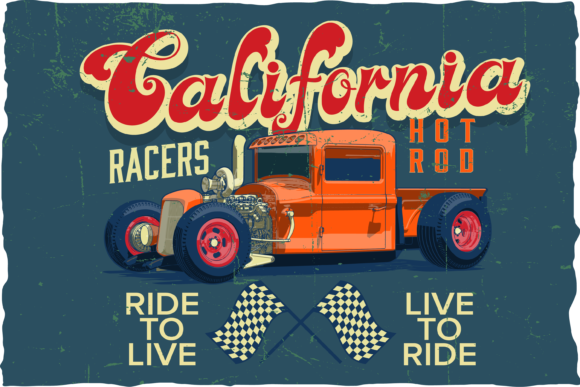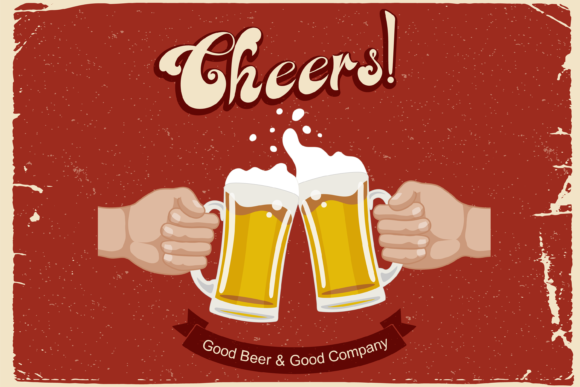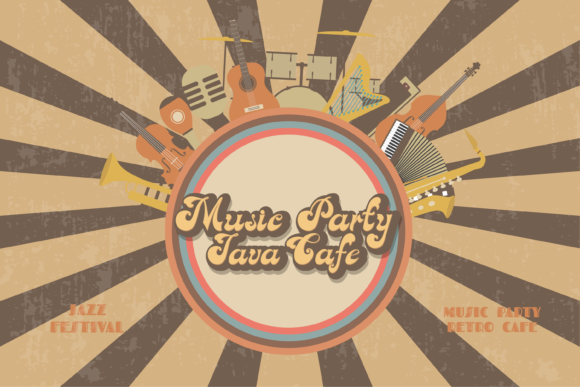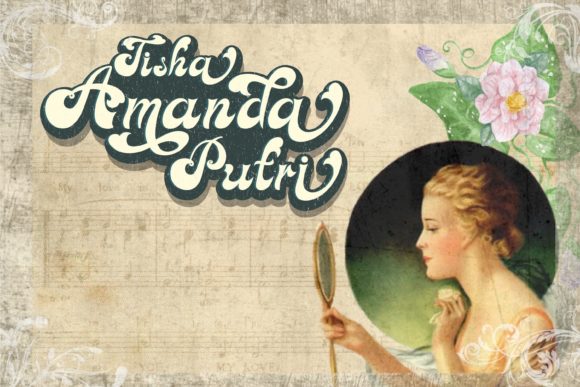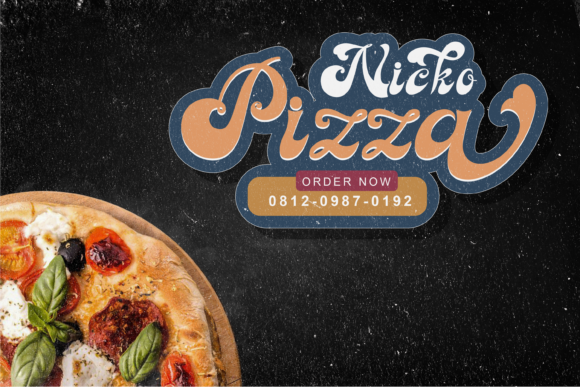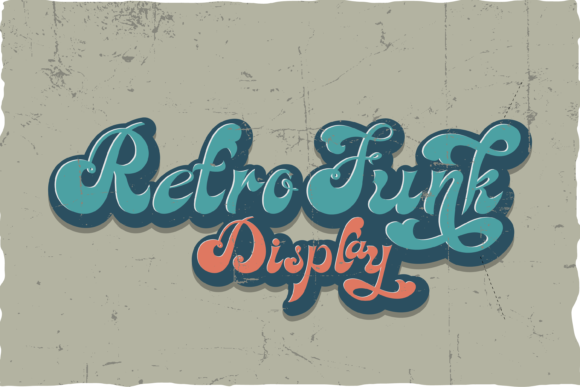
Achandria Font: Elevate Your Designs with a Retro Flair
In the realm of typography, fonts play a pivotal role in conveying the tone and aesthetic of a design. For those seeking to infuse their projects with a touch of nostalgia and sophistication, the Achandria Font stands out as an exceptional choice. This gorgeous, retro-styled display font is meticulously crafted to breathe life into headlines and logotype projects, exuding a strong, confident, and dynamic vibe.
The Essence of Achandria Font
Achandria is not just a font; it’s a statement piece for your designs. Its retro style is carefully balanced with modern sensibilities, making it versatile for a wide range of projects. Whether you’re working on a vintage-inspired branding campaign, a stylish magazine layout, or a captivating website header, Achandria can add a unique nostalgic character that sets your work apart.
Key Features of Achandria Font
- Retro yet Modern Appeal: Achandria strikes the perfect balance between retro charm and contemporary style, making it suitable for designers looking to create timeless pieces.
- Strong and Confident: The font’s bold and assertive presence ensures that your headlines and logotypes command attention.
- Dynamic and Versatile: With its clear readability and striking appearance, Achandria can be used across various mediums, from digital platforms to print materials.
- Nostalgic Character: It adds a warm, nostalgic feel to designs, perfect for projects that aim to evoke a sense of history or vintage appeal.
Applications of Achandria Font
The versatility of Achandria Font makes it an invaluable asset for a myriad of design projects. Here are some of the areas where Achandria can make a significant impact:
- Branding and Logotypes: Create memorable brand identities with a font that stands out and communicates strength and reliability.
- Advertising and Marketing Materials: Use Achandria to craft compelling headlines and slogans that capture attention and leave a lasting impression.
- Web Design: Elevate your website’s aesthetic with stylish headers and titles that blend professionalism with a touch of nostalgia.
- Print Media: From magazine covers to billboards, Achandria can add a dynamic flair to any print project.
Why Choose Achandria Font?
In a sea of fonts, Achandria stands out for its unique blend of retro charm and modern appeal. Here are a few reasons why designers and crafters are gravitating towards this exceptional font:
- Uniqueness: Achandria offers a distinct style that can help your designs stand out in a crowded marketplace.
- Legibility: Despite its decorative nature, Achandria maintains excellent legibility, ensuring your message is conveyed clearly.
- Customization: The font comes with a range of customization options, allowing you to tailor it to fit your project’s specific needs.
Achandria Font is more than just a typeface; it’s a design statement that can elevate your projects with its retro flair and dynamic presence. Whether you’re a professional designer or a crafting enthusiast, Achandria offers the tools to create visually stunning and impactful designs. With its strong, confident, and nostalgic character, Achandria is poised to become a go-to font for those looking to add a touch of sophistication and charm to their work.
Embrace the power of Achandria Font in your next design venture and discover how this gorgeous, retro-styled display font can transform your projects into memorable pieces of art.